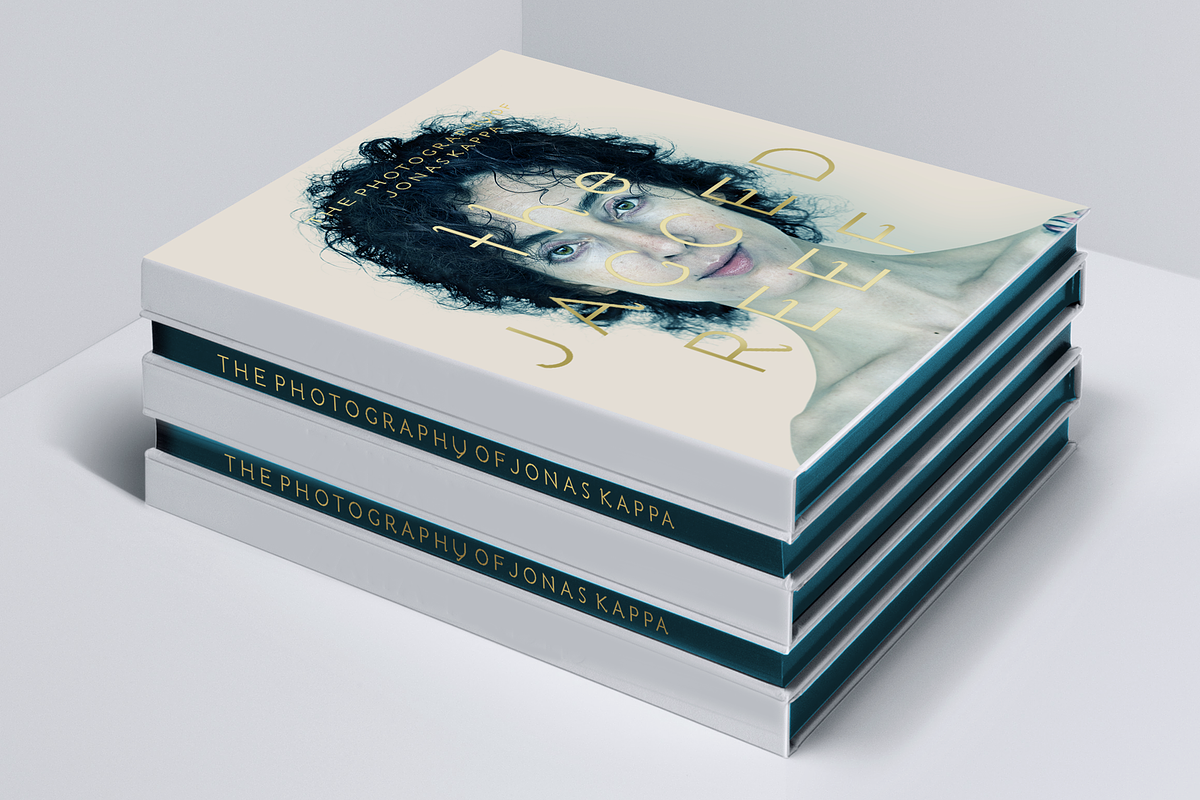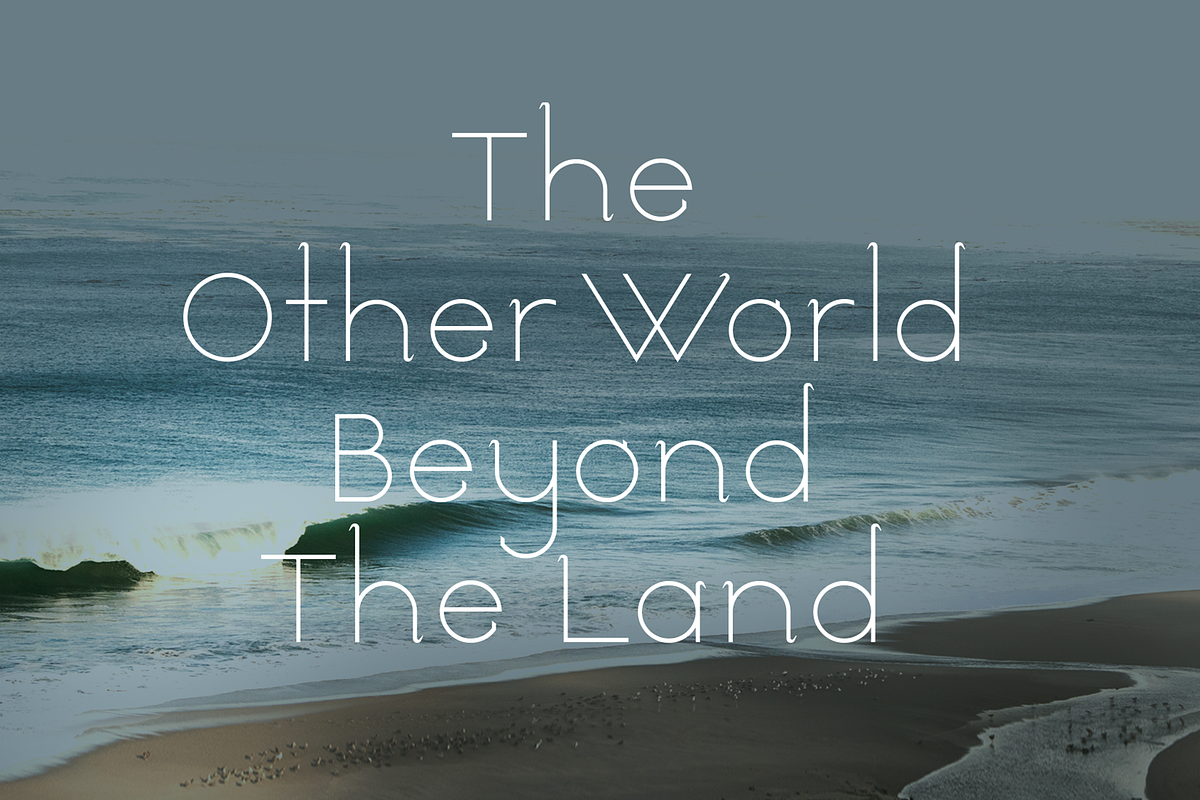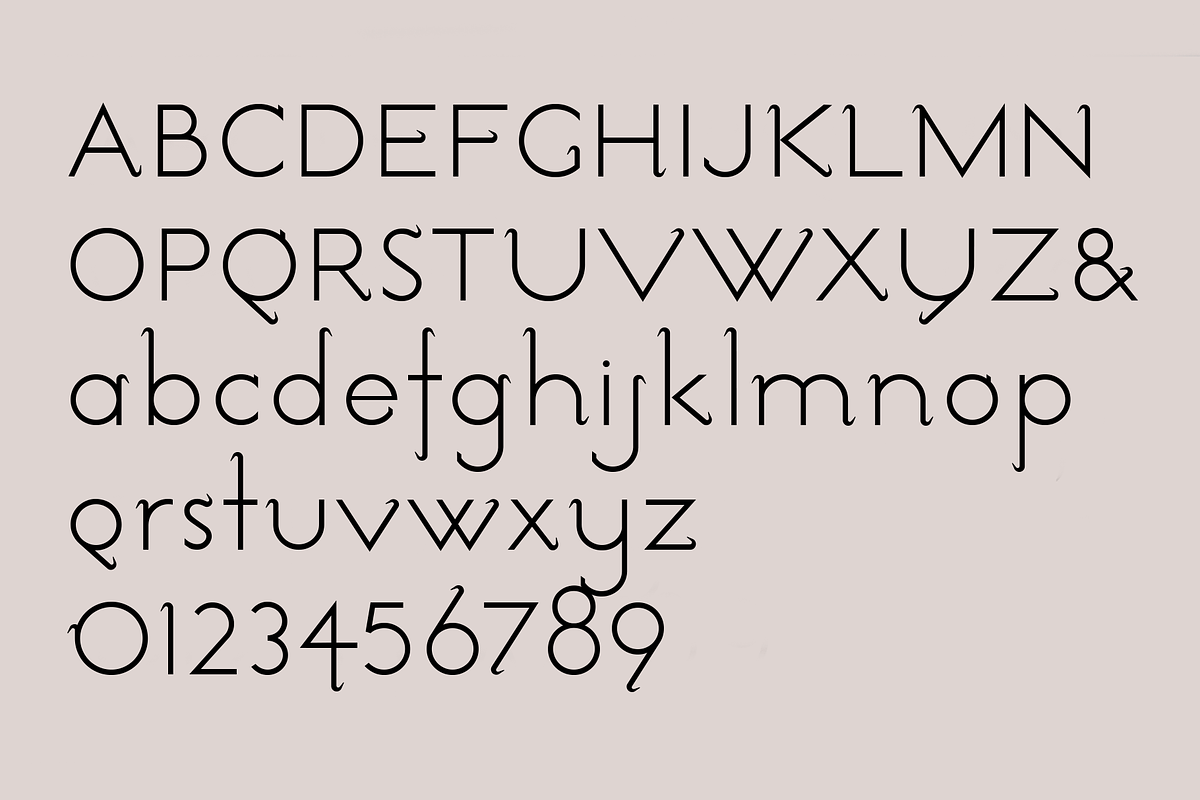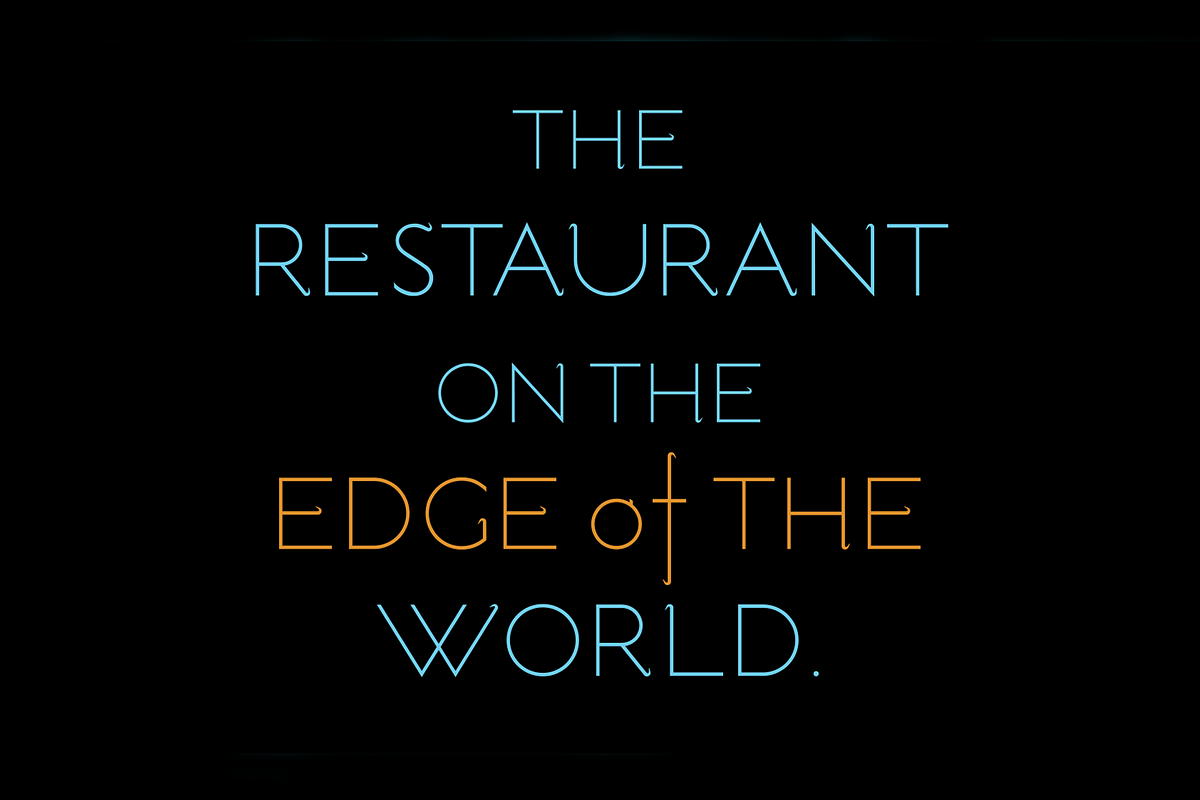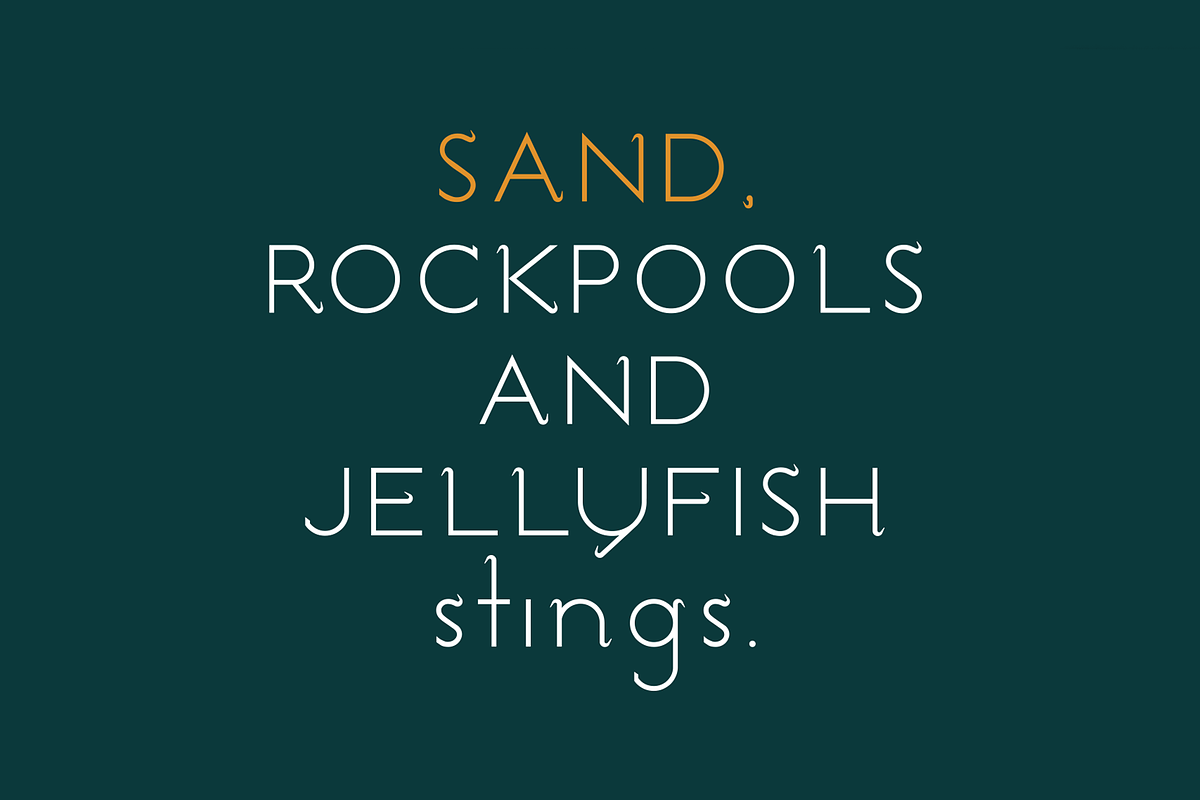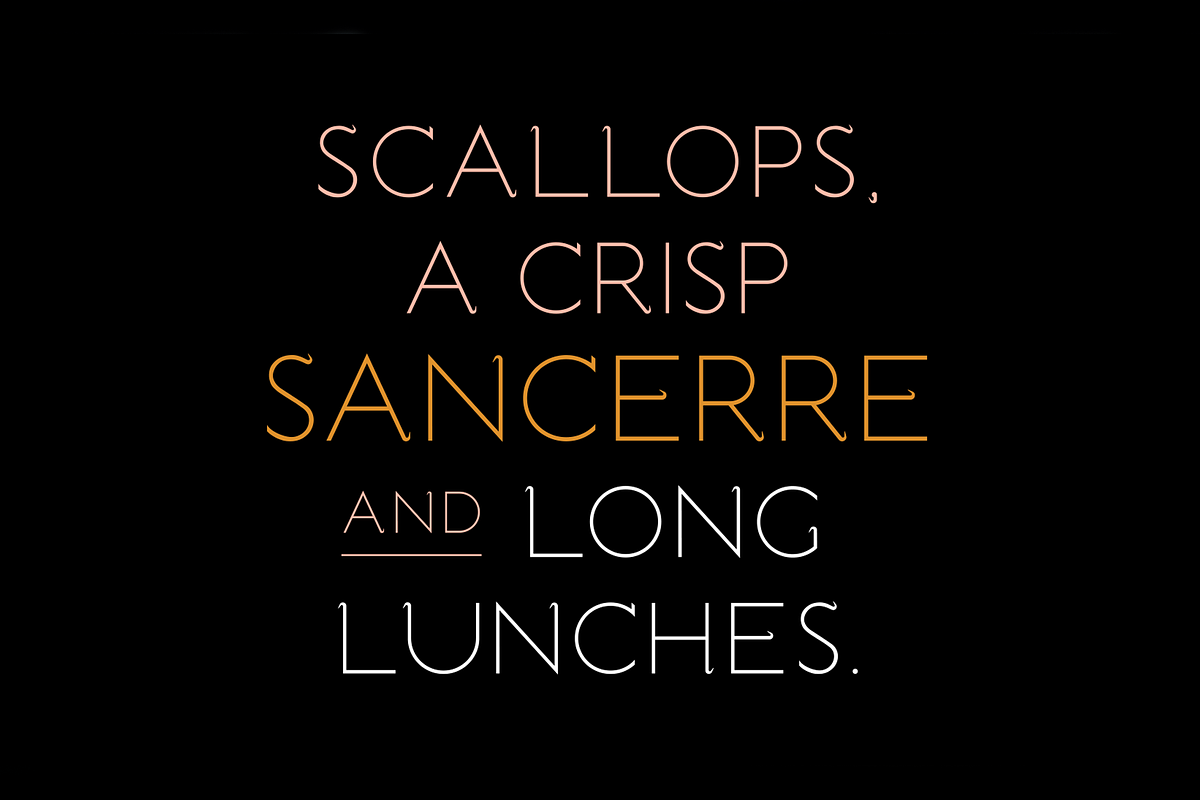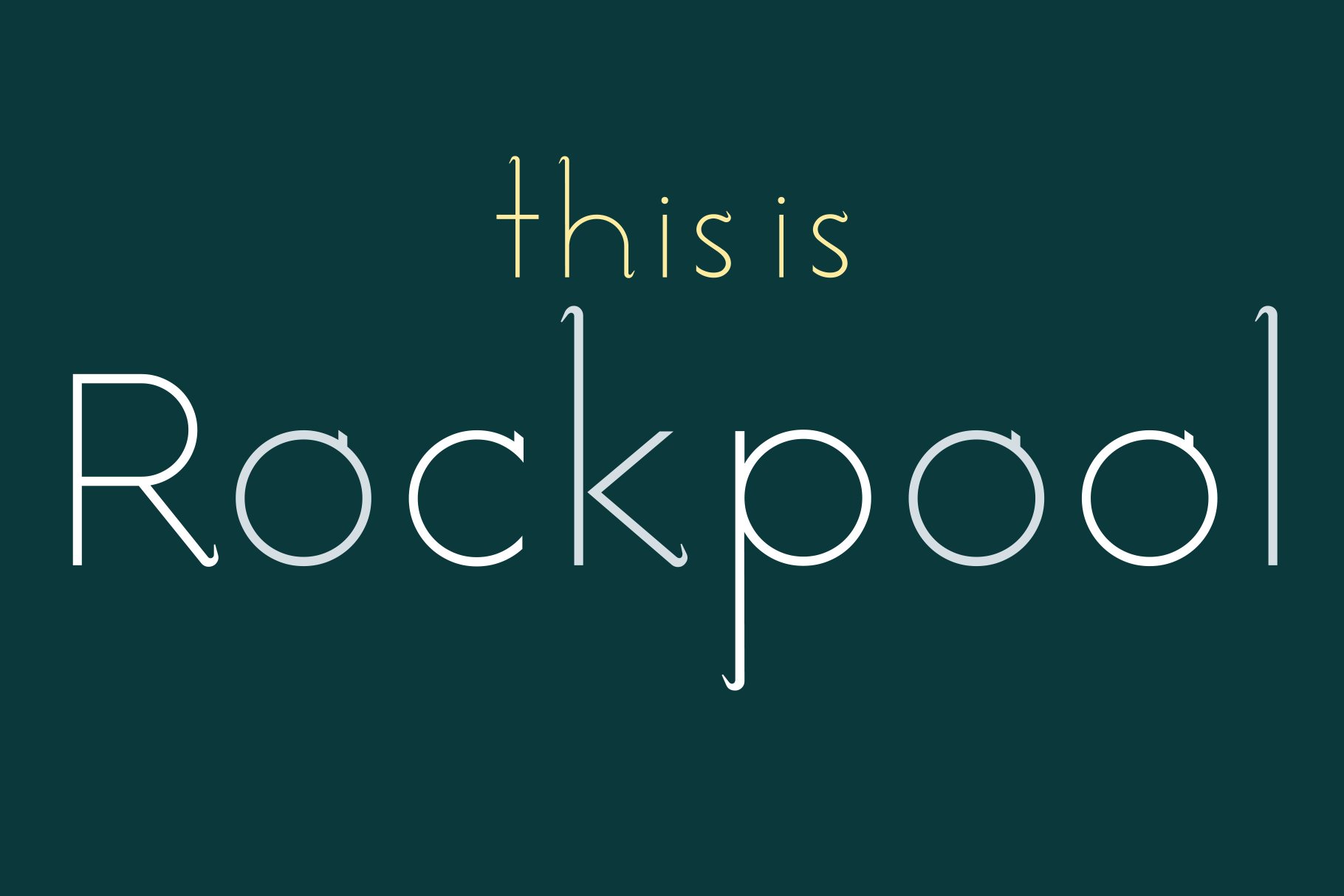
Rockpool. Chic sans serif font
Rockpool is a sleek and contemporary new 'crossover font' for designers from LostandFoundry. This stylish font has the look and feel of a clean-lined sans serif font, but with subtle, 'serif-like' touches.
Rockpool was inspired by my childhood growing up in Sydney, surrounded by beaches and the sea, so I have given the serifs a slight embellishment resembling fish hooks.
Rockpool is both modern, yet elegant and refined, and is a perfect addition to every designer's font library. Use Rockpool in your design projects - in headlines, titles, text, f&b design, packaging design and logos. And online in websites, blogs, vlogs titles, Youtube creator titles and social media post titles. Rockpool comes in 2 weights and supports French, German and other European languages.